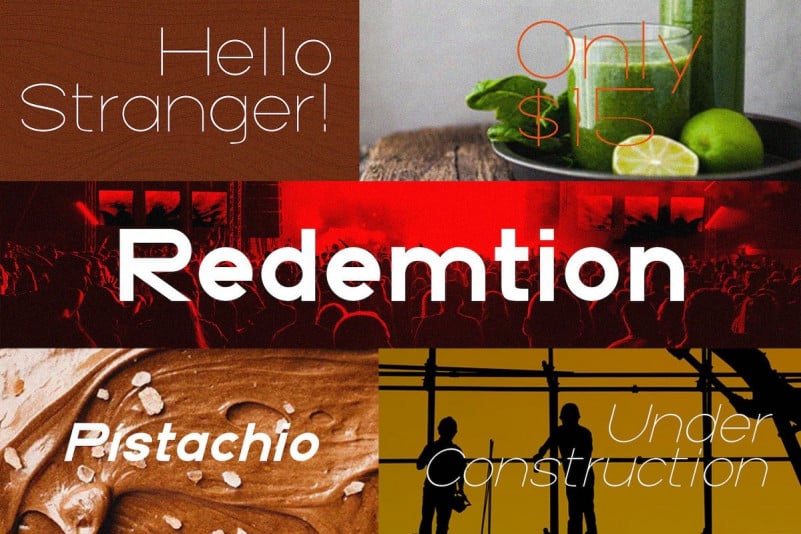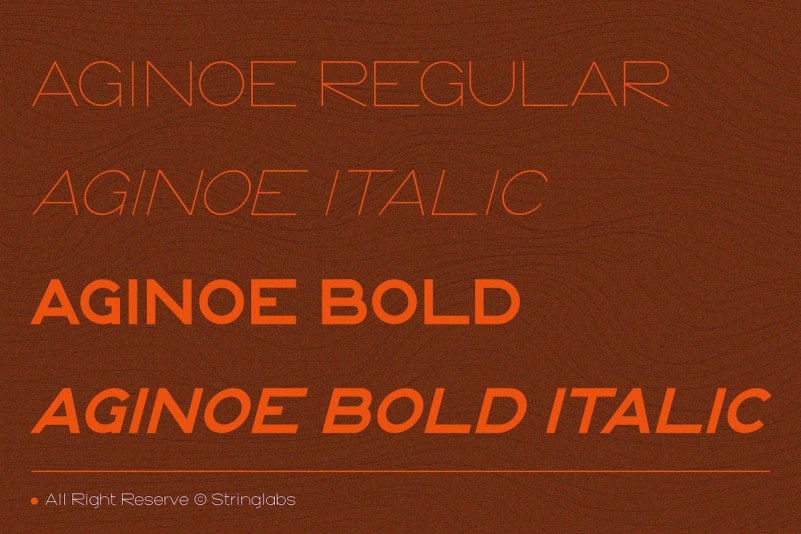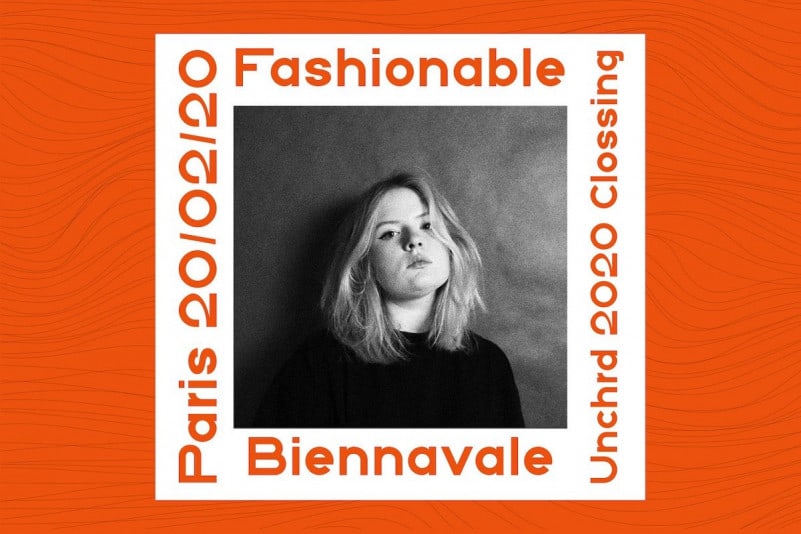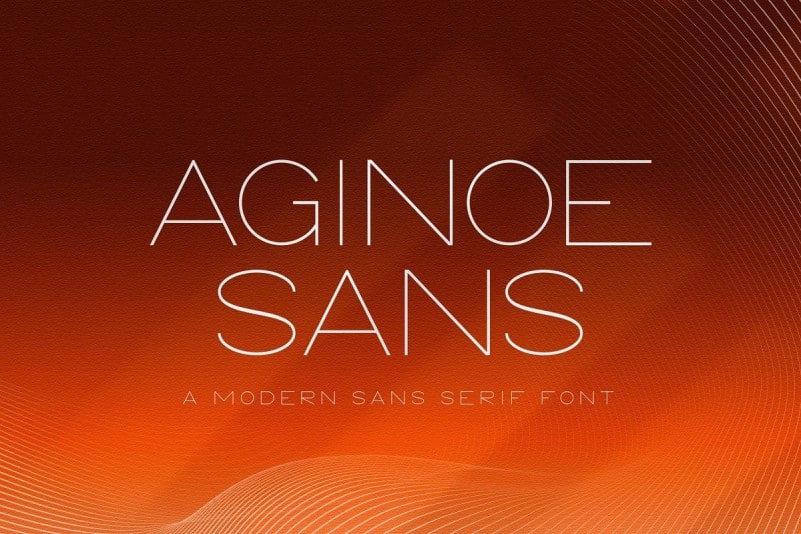
Aginoe Sans Serif Font
Aginoe Sans Serif Font – a sans serif with simple, clean, and visual elegance. Specially designed for elegant-themed projects, perfectly suitable for creating simple, clean, lifestyle design such as logos, title, and magazine and more. It’s designed and shared by StringLabs. Aginoe Sans Serif Font is a gorgeously unique sans serif font that combines perfect readability with a clean and modernist lettering design. The font is also available in a regular, italic, bold italic and bold version.